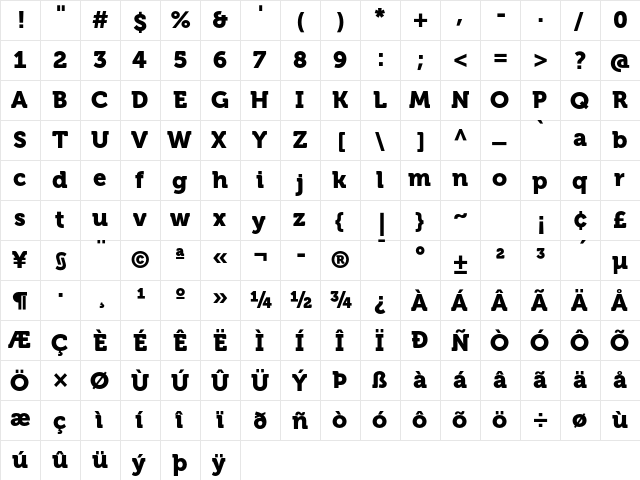
Museo 900
900 · Jos Buivenga Jos Buivenga ·
Foundry Jos Buivenga
FoundryJos Buivenga
DesignerJos Buivenga
Design Context for Museo Typeface
Museo offers clean, dependable letterforms without strong stylistic allegiance, making it a practical choice for designers who need flexibility.
Pro Tip: Use Museo in both headline and body roles to test its range before committing to a single application.